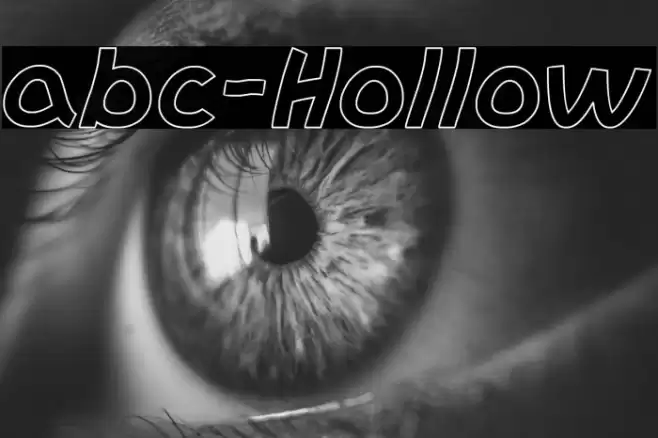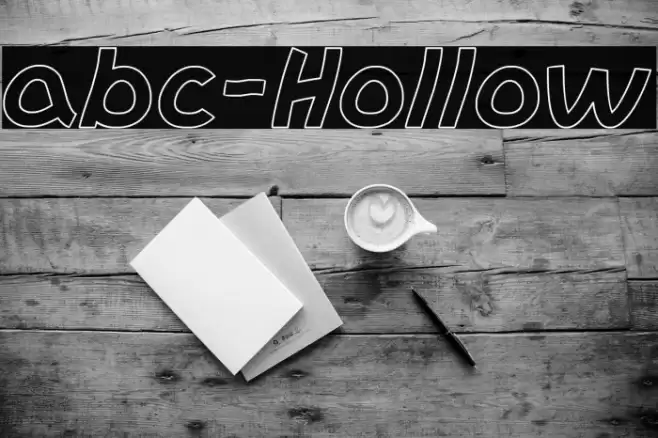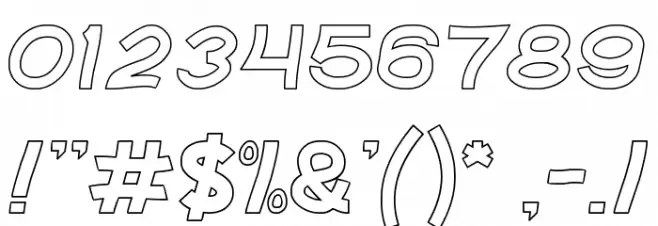
abc-Hollow Font
abc-Hollow Description
This font features a playful and modern hollow design, with each character outlined to create a light and airy appearance. The letters are rounded and smooth, giving off a friendly and approachable vibe. The uppercase and lowercase letters maintain a consistent style, with a slight slant that adds a dynamic feel. The numbers and special characters are crafted to match the overall aesthetic, ensuring uniformity across all glyphs. This font's hollow nature makes it ideal for projects where a bold statement is desired without the heaviness of solid text.
A playful, modern hollow font with rounded, smooth characters from Uncategorized fonts.
- Proposed Projects: Ideal for children's book covers, playful branding, posters, and creative digital content.